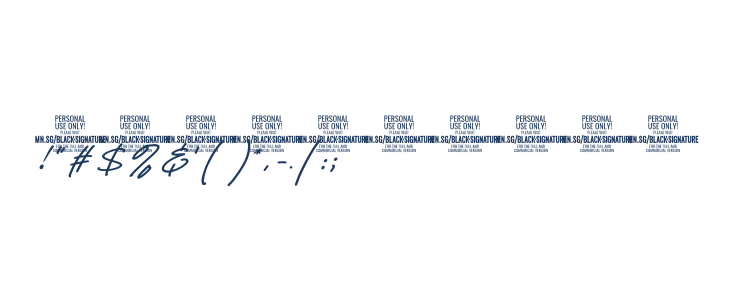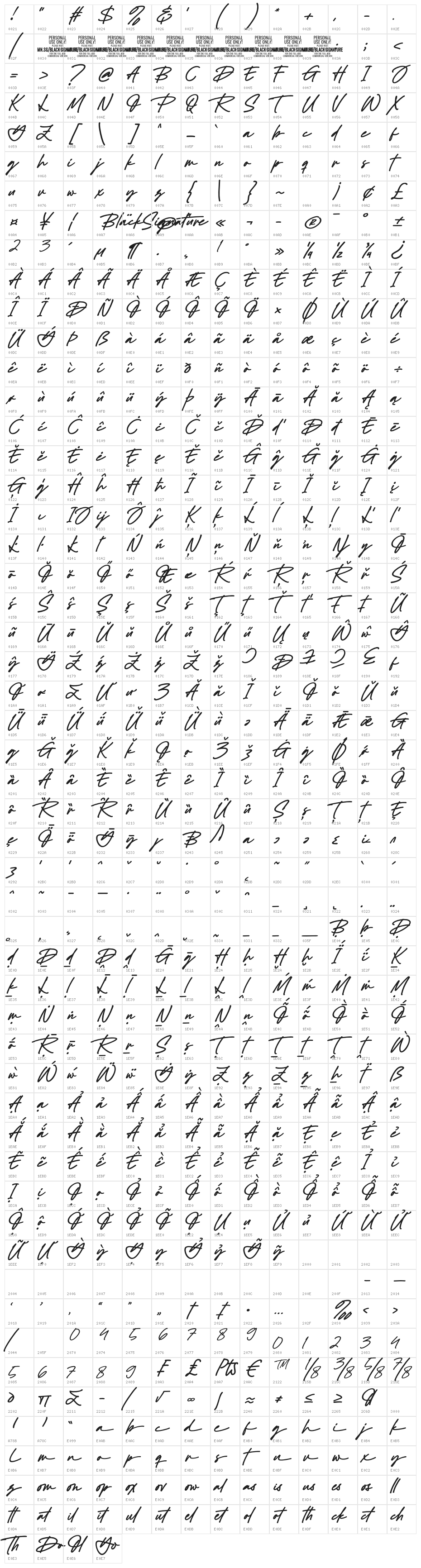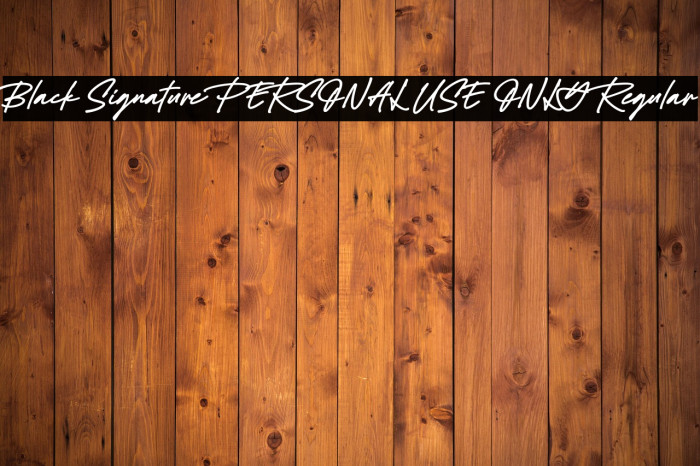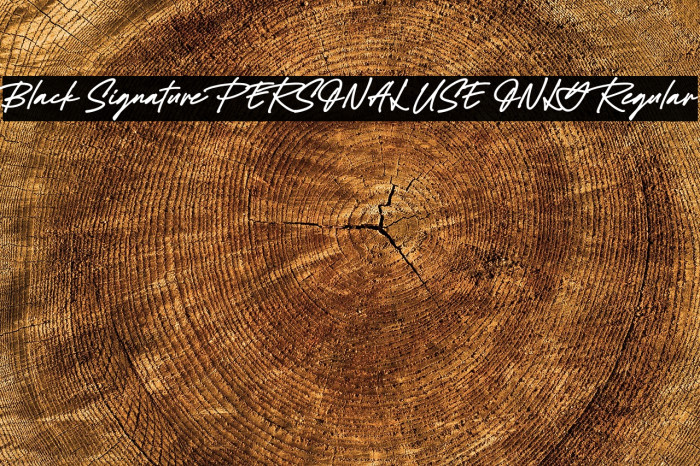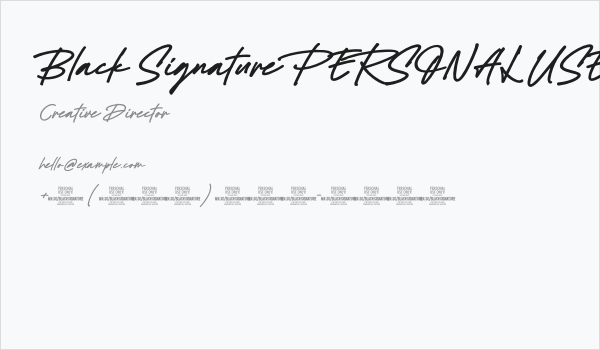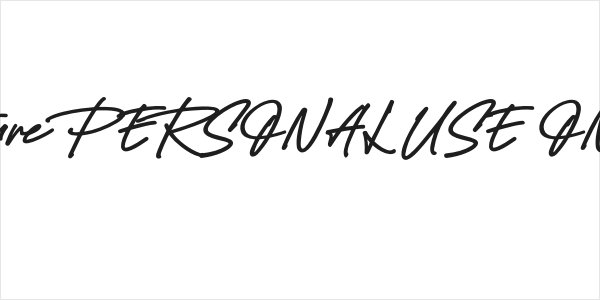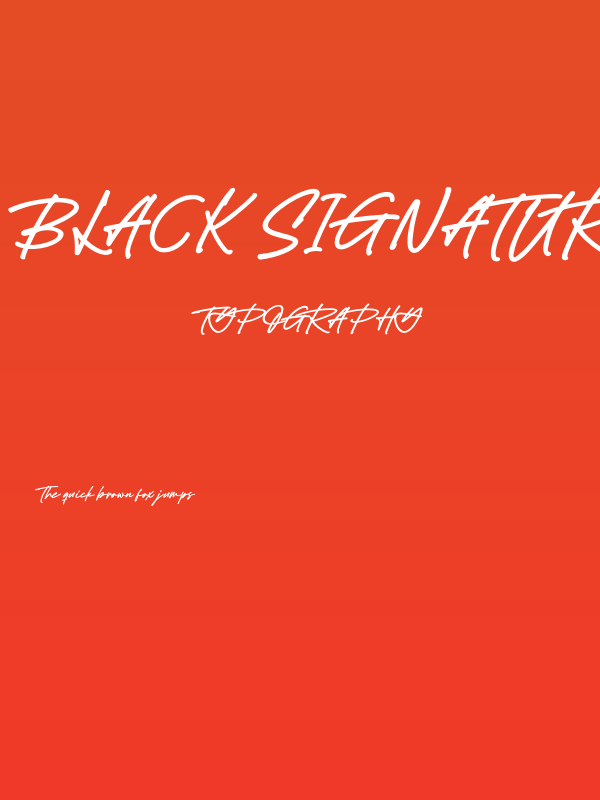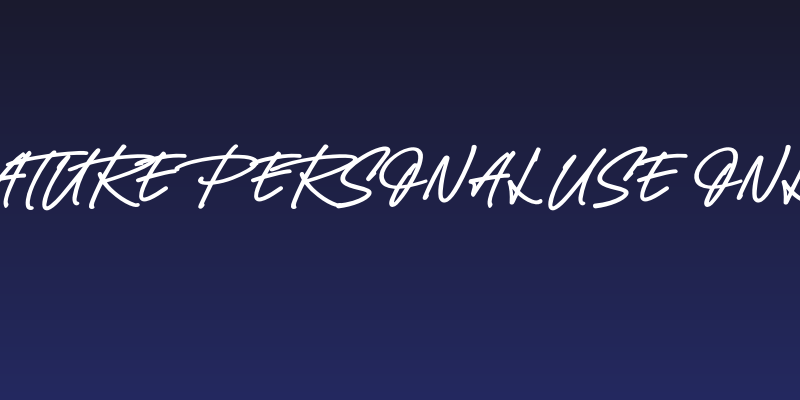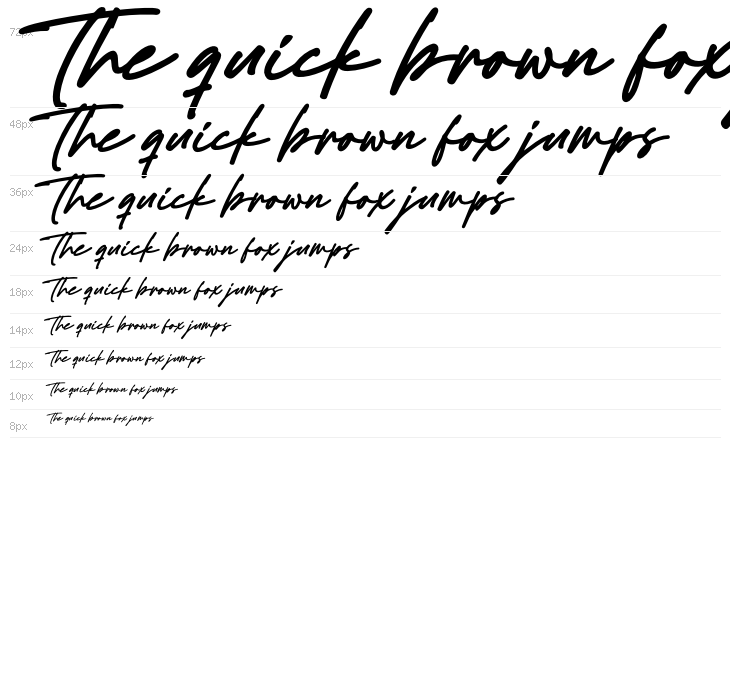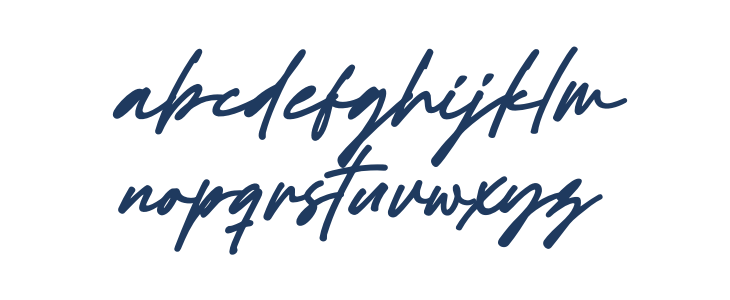
Black Signature PERSONAL USE ONLY Regular Font
Black Signature PERSONAL USE ONLY Regular Description
This font exudes a dynamic and expressive handwritten style, characterized by its fluid and cursive strokes. The letters are interconnected, creating a seamless flow that mimics natural handwriting. The uppercase letters are bold and prominent, while the lowercase letters maintain a consistent rhythm and elegance. The font's overall appearance is both artistic and sophisticated, making it suitable for projects that require a personal touch. The special characters are crafted with the same attention to detail, ensuring a cohesive look across all elements.
Use CaseLogos, Headlines, Invitations
Proposed ProjectsIdeal for wedding invitations, personal branding, greeting cards, and artistic projects that require a personal and elegant touch.